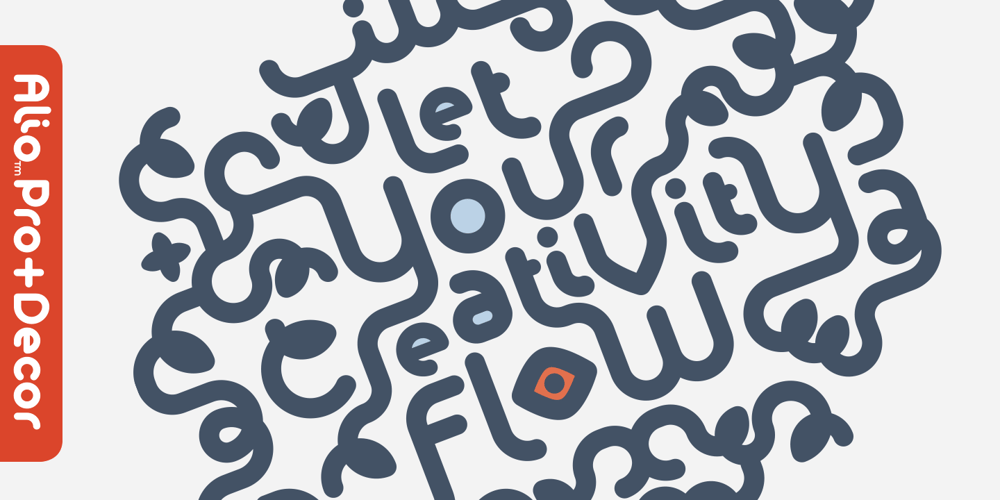
Alio Font Family was designed by Tana Kosiyabong and published by R9 Type+Design. Alio contains 36 styles and family package options. Alio™– Let Your Creativity Flow. Inspired by sleek sans serifs and flowing cursives, Alio™ features the best of both worlds. The hybrid modular design of this display type gives you tons of alternates and options to play. Just let your creativity flow and enjoy creating a broad range of styles from minimalistic modern to decorative flourish. *Alio Pro* comes loaded with extensive ligatures and alternates. When combined this display type with Alio Decor, you can let your creativity flow to the max. Together, you can create stunning flourish designs and unique type treatment to your projects. The Pro also supports most Latin-based languages. Heck, it even covers Chinese PinYin. Perfect for the logo, branding, poster, book cover, store sign, and packaging. [6 weights/12 font styles. 750+ glyphs each] *Alio Decor* is more than just an Alio Pro’s sidekick. You can enjoy creating flourish designs exclusively with Alio Decor. [6 weights/12 font styles, 300+ glyphs each] *Alio Std* features selected glyphs from Alio Pro (fewer ligatures and alternates). Perfect for web headlines and subheads, and minimalistic, modern print designs. [6 weights/12 font style, 400+ glyphs each]